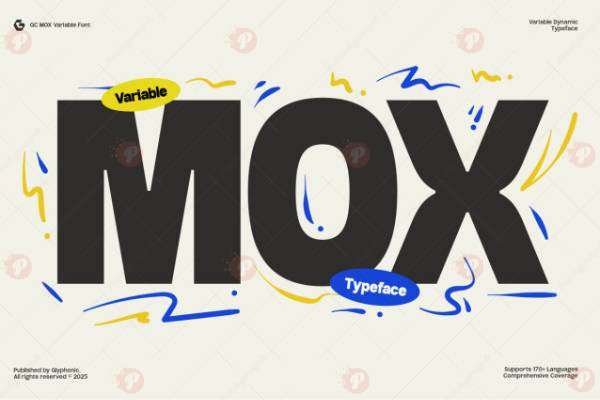
The GC MOX – Bold Variable Energy Free Font is a futuristic, high-energy typeface designed to make your text stand out with boldness and versatility. Its dynamic variable design allows for creative flexibility, making it perfect for headlines, posters, branding, digital graphics, and social media content.
With a modern, tech-forward aesthetic, GC MOX Free Font is ideal for projects in technology, gaming, music, and creative design, giving your typography a powerful, energetic presence.
Font Style: Bold / Variable / Futuristic Typeface
Perfect For: Headlines, branding, posters, social media, gaming, tech projects, digital graphics